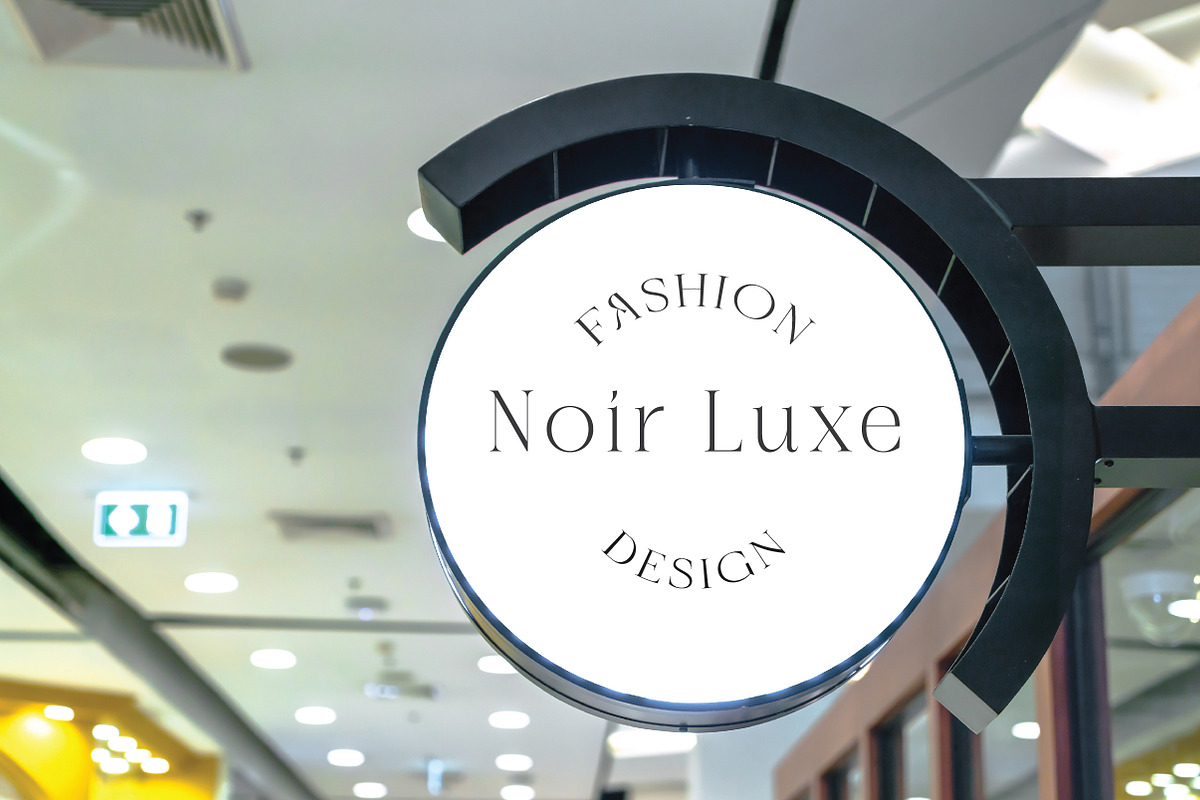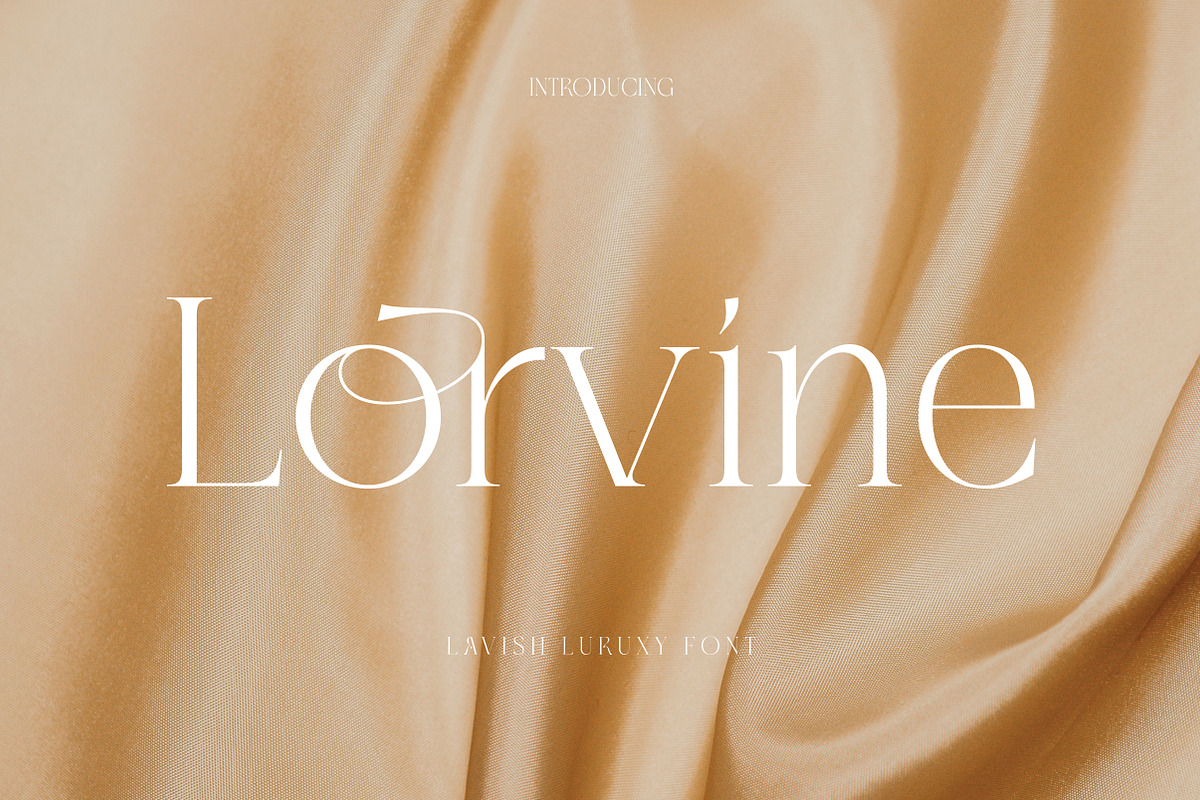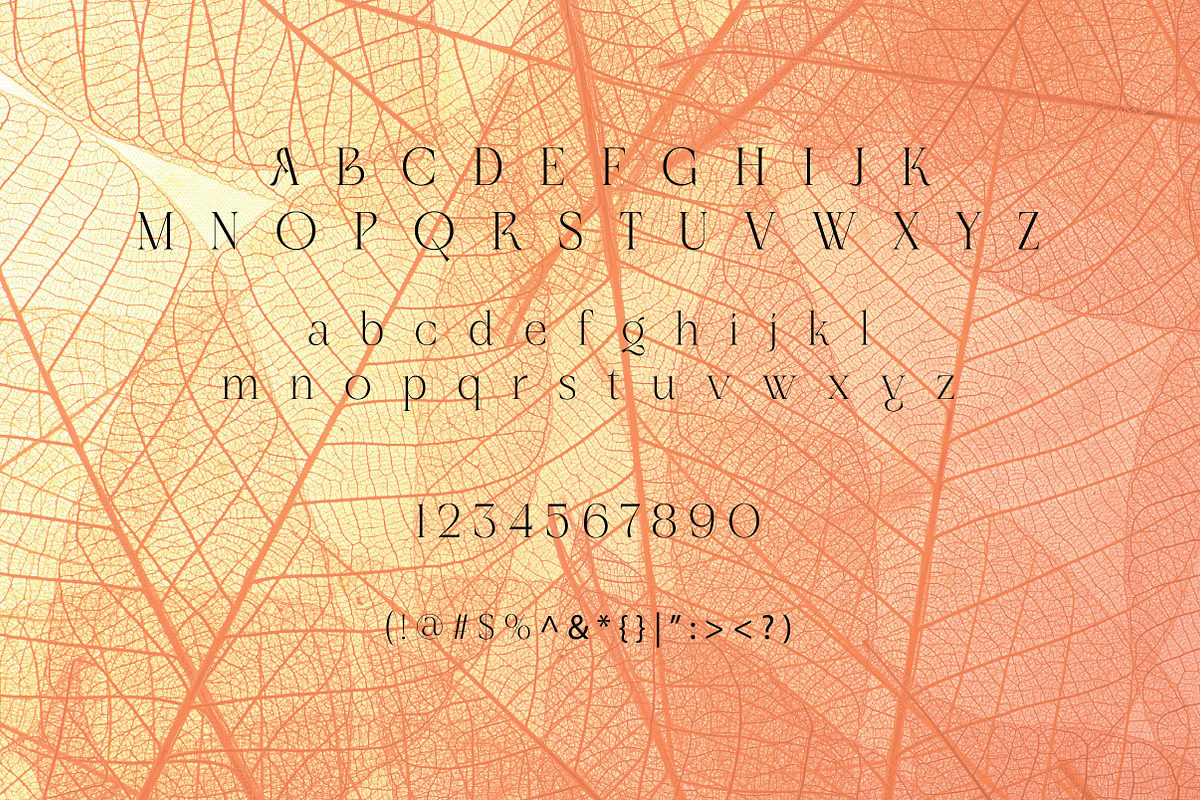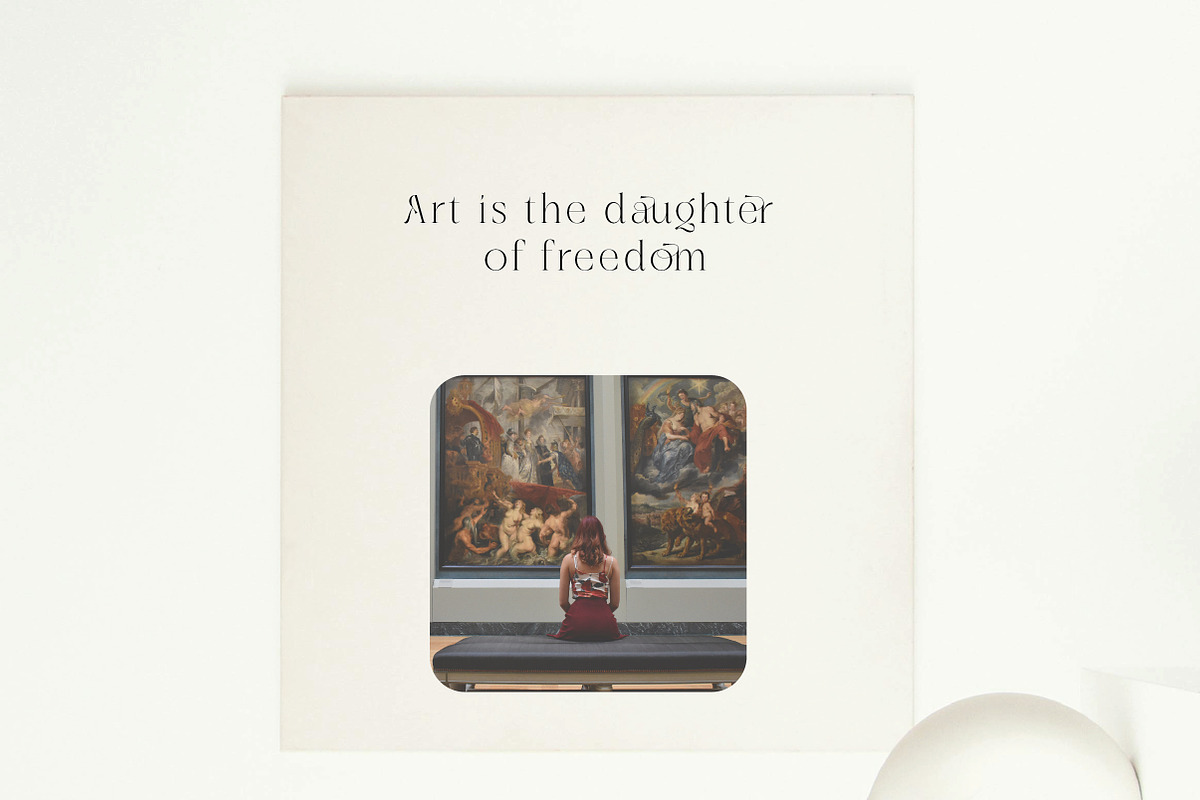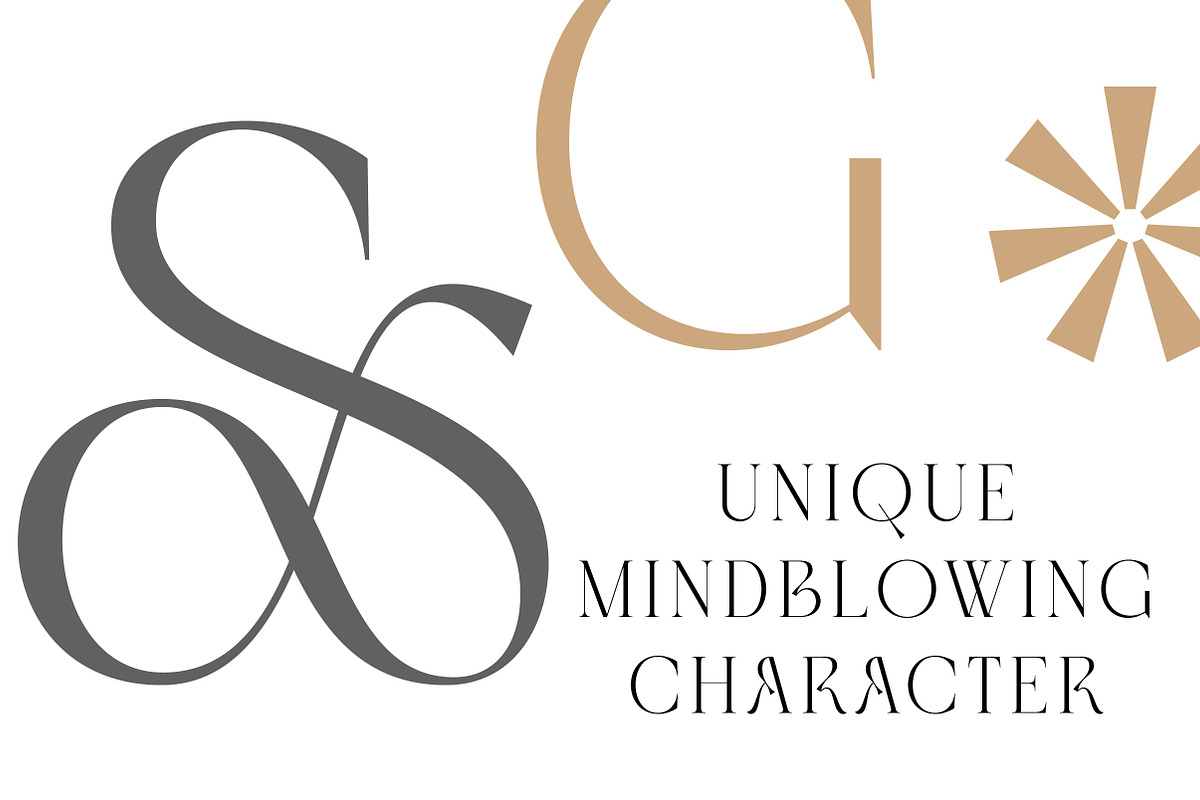
Lorvine | Elegant Modern Serif Typef
Lorvine is a modern and elegant serif typeface designed for creative professionals who value sophistication and readability. Its Regular style features smooth curves, sharp serifs, and balanced proportions—making it perfect for branding, editorial layouts, packaging, logos, wedding invitations, and luxury-themed design work. Lorvine brings refined clarity to both headlines and body text, performing beautifully in digital and print formats alike. Its timeless character and clean structure make it a versatile font choice for a wide range of design applications.
Lorvine is the ideal serif font for designers who appreciate classic elegance, modern simplicity, and versatile typographic strength.